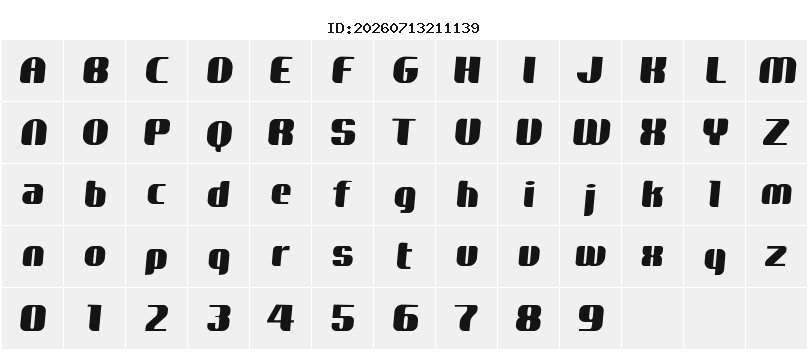
• Font Name: Camellia
• Copyright: Copyright(R) : 1999 Creation all rights reserved. Camellia‐ExtraBold. designed by Masato Shimojima : Design studio creation.
Camellia.ttf is a modern, elegant sans-serif font designed for ultimate readability and visual harmony. Perfect for branding, headlines, web design, and print materials.